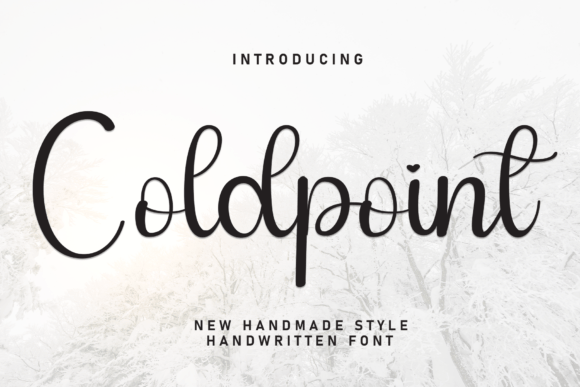
Introducing the mesmerizing Coldpoint Font, a delightful addition to our collection of clean fonts for design resumes. Crafted with love by the talented Strongkeng Old, this script font is a perfect blend of elegance and playfulness.
Are you tired of mundane and boring fonts that fail to capture your audience's attention? Look no further! Coldpoint Font is here to elevate your designs and make them stand out from the crowd.
With its sweet and friendly handwritten style, this font exudes a captivating charm that will instantly captivate your audience. Its clean and crisp lines add a touch of sophistication, making it suitable for a wide range of purposes.
Imagine the joy of receiving a wedding invitation adorned with the Coldpoint Font. Its cute and fun nature will set the perfect tone for a memorable celebration. Your guests will be enchanted by the unique personality this font brings to your invitations, guaranteeing an unforgettable experience.
But the Coldpoint Font doesn't stop at weddings. Its versatility extends to various design projects, including cards, posters, logos, and more. Add a touch of whimsy and creativity to your designs with this font's playful strokes and stylish curves.
Express your individuality and let your designs speak volumes with this eye-catching font. Stand out in the sea of monotony and make a lasting impression on your clients, colleagues, or potential employers.
Crafted with utmost care, the Coldpoint Font is meticulously designed to ensure smooth readability. Its well-defined characters ensure legibility across different mediums and sizes, making it a reliable choice for both print and digital projects.
Incorporating the Coldpoint Font into your designs is effortless. Its user-friendly nature allows you to seamlessly blend it with other fonts or use it as the star of your composition. Let your creativity run wild and watch as the Coldpoint Font effortlessly enhances your artistic vision.